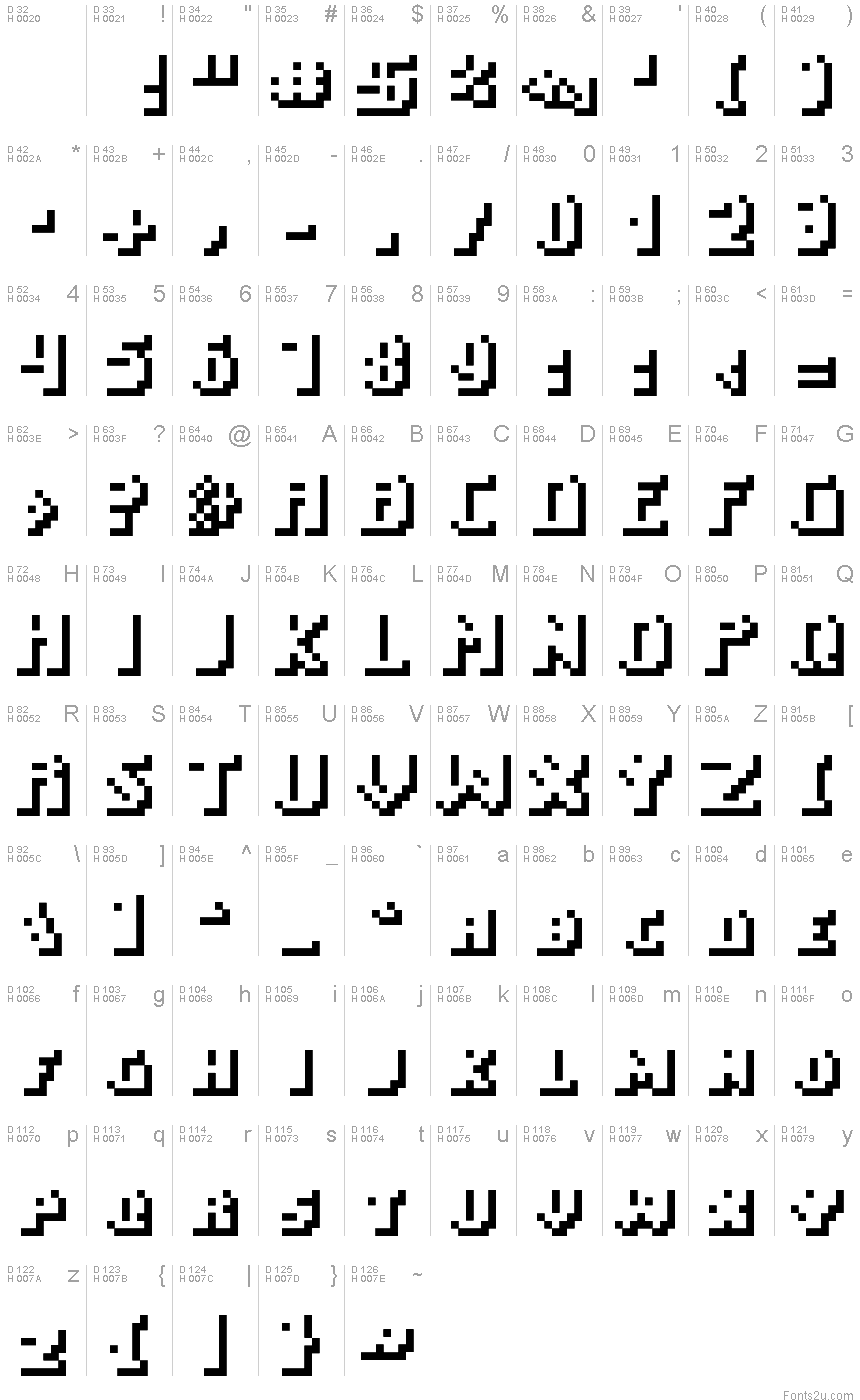
EaseOfUseShadow
A font specifically made for use in Adventure Game Studios. Best viewed at 8 pixel size. Shadow and outline fonts are to be layered over the base font.